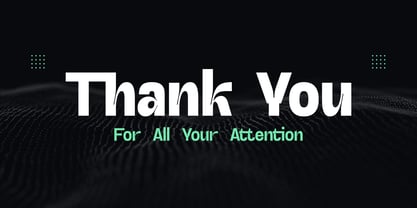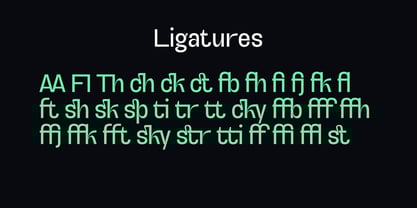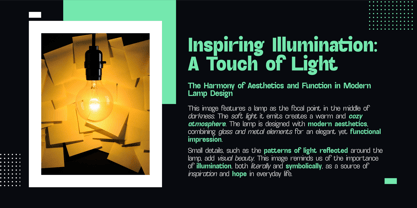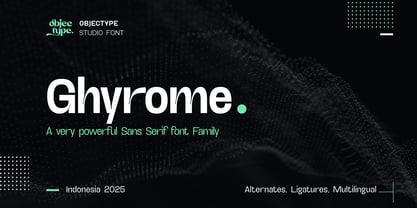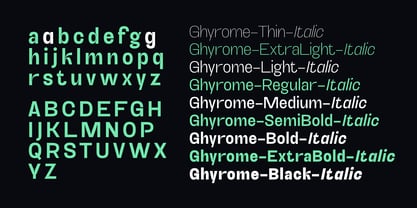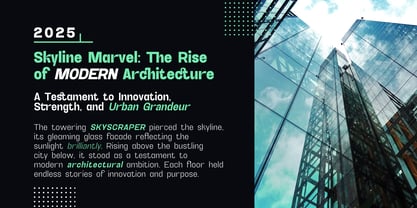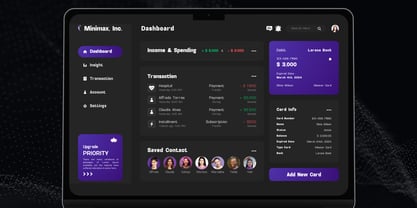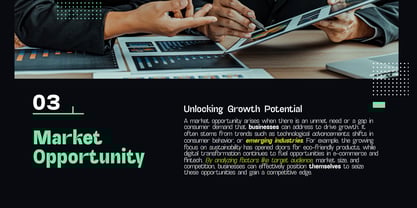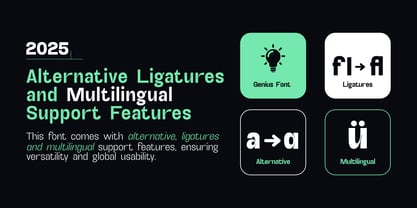
Ghyrome
by Objectype
The Ghyrome Font Family was designed by Candi Erwanto and published by Objectype. Ghyrome contains 18 styles and family package options. More about this family
Ghyrome is a modern font with a futuristic and minimalist style designed to deliver a professional, innovative, and edgy impression. Its distinctive feature lies in its creative letter cuts, giving it a dynamic touch without sacrificing readability.
With a balanced proportion of bold and thin elements and attractive geometric shapes, Ghyrome is the perfect choice for a variety of design needs. Available in 18 styles, complete with italic versions, Ghyrome offers high flexibility for branding projects, logos, tech-themed posters, digital media, and professional prints.
Designed to support strong modern visual elements, Ghyrome works exceptionally well on dark backgrounds, making its design elements stand out. This font also features ligatures, alternate letter styles, multilingual support, and precise kerning and metrics to ensure your designs look aesthetic and flawless.
Ghyrome is the ultimate solution for projects aiming to convey messages of technology, progress, or boundless creativity.
Designers: Candi Erwanto
Foundry: Objectype